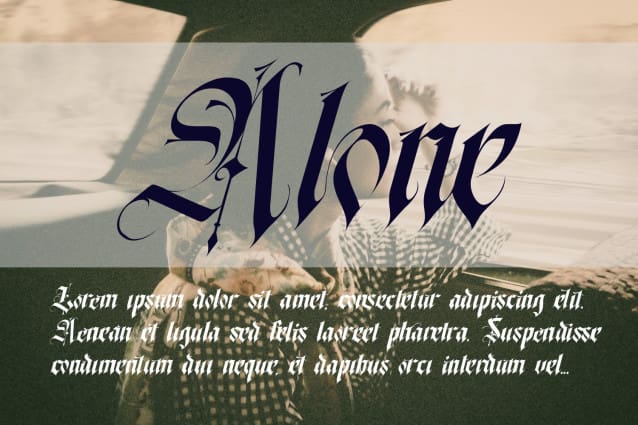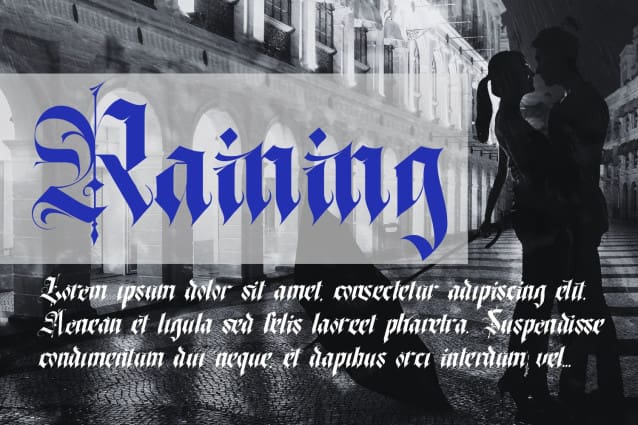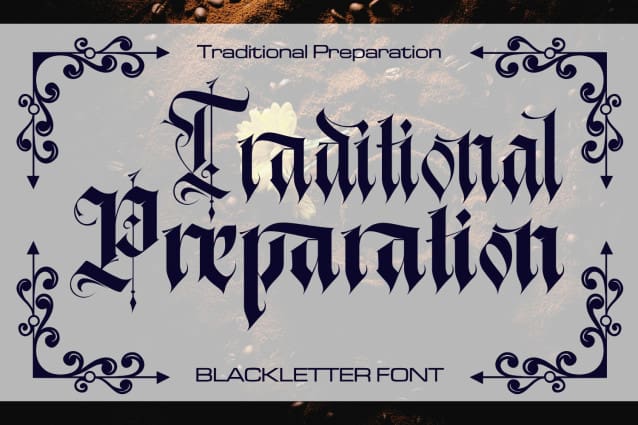
Traditional Preparation Font
Traditional Preparation Font is inspired by cool old style blackletter letters. This typeface has many ligature and a choice of several characters from uppercase or lowercase letters. A gothic display font a distinct, highly detailed, and chic Blackletter font. It would make a great choice for exquisite retro-urban designs, tattoo business branding, logos, vintage designs, movie, poster, apparel, illustration, and more.
Traditional Preparation was built with OpenType features and includes 100 ligatures, alternate, numbers, punctuation, and it also supports other languages.